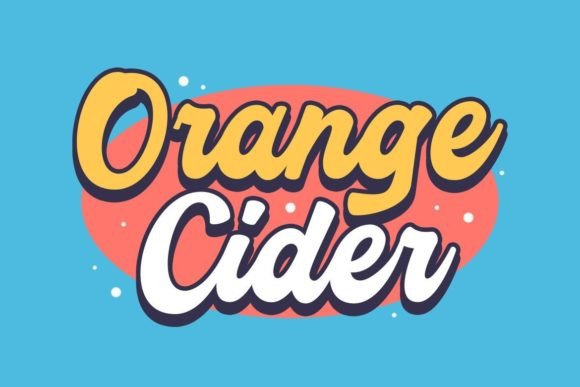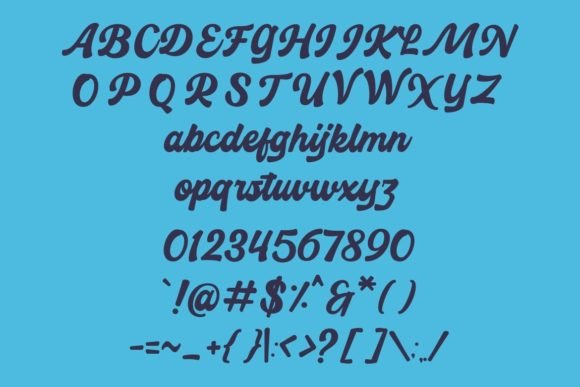
Derryl Citrus: The Ultimate 80s Vibe Font for Your Design Time Machine
Are you tired of using the same old fonts in your designs? Do you want to add a blast of nostalgia and fun to your visual creations? Look no further than Derryl Citrus, the perfect 80s vibe font for your design time machine. In this article, we’ll explore the features and benefits of Derryl Citrus and how it can elevate your designs to the next level.
What is Derryl Citrus?
Derryl Citrus is a unique and stylish font that captures the essence of the 1980s. With its bold, colorful, and playful design, this font is perfect for adding a touch of nostalgia and whimsy to your designs. Whether you’re working on a vintage-inspired project, a retro-themed campaign, or simply want to add some personality to your visual content, Derryl Citrus is the perfect choice.
Key Features of Derryl Citrus
- 80s Vibe Aesthetic: Derryl Citrus boasts a distinctive 80s vibe aesthetic that’s sure to transport your designs back in time. Its bold lines, bright colors, and playful typography are reminiscent of the iconic designs of the decade.
- Versatile and Adaptable: This font is incredibly versatile and can be used for a wide range of design projects, including vintage, retro, classical, sign painting, apparel, food and beverages, social media content, logos, branding, and more.
- High-Quality Design: Derryl Citrus is designed with high-quality and precision in mind. Its crisp lines and smooth curves ensure that your designs look professional and polished.
Benefits of Using Derryl Citrus
So why choose Derryl Citrus for your design projects? Here are just a few benefits of using this amazing font:
- Adds Personality to Your Designs: Derryl Citrus adds a touch of personality and whimsy to your designs, setting them apart from the crowd.
- Evokes Nostalgia: The 80s vibe aesthetic of Derryl Citrus is sure to evoke feelings of nostalgia in your audience, making your designs more relatable and engaging.
- Increases Brand Recognition: Using a unique and memorable font like Derryl Citrus can help increase brand recognition and build a strong visual identity.
- Perfect for Creative Projects: Derryl Citrus is perfect for creative projects, such as designing logos, branding materials, social media content, and more.
How to Use Derryl Citrus in Your Designs
Using Derryl Citrus in your designs is easy. Here are a few tips to get you started:
- Pair with Bold Colors: Derryl Citrus looks amazing paired with bold, bright colors. Try pairing it with neon hues, pastel colors, or bold primaries.
- Experiment with Typography: Derryl Citrus can be used in a variety of typographic contexts, from bold headings to playful body copy.
- Add Texture and Patterns: Add texture and patterns to your designs to give them an extra layer of depth and interest.
Derryl Citrus is the perfect font for designers and crafters looking to add a touch of nostalgia and fun to their designs. With its bold, colorful, and playful design, this font is sure to transport your designs back in time to the iconic 1980s. Whether you’re working on a vintage-inspired project, a retro-themed campaign, or simply want to add some personality to your visual content, Derryl Citrus is the perfect choice. So why wait? Download Derryl Citrus today and pop up your design with a blast of 80s nostalgia!